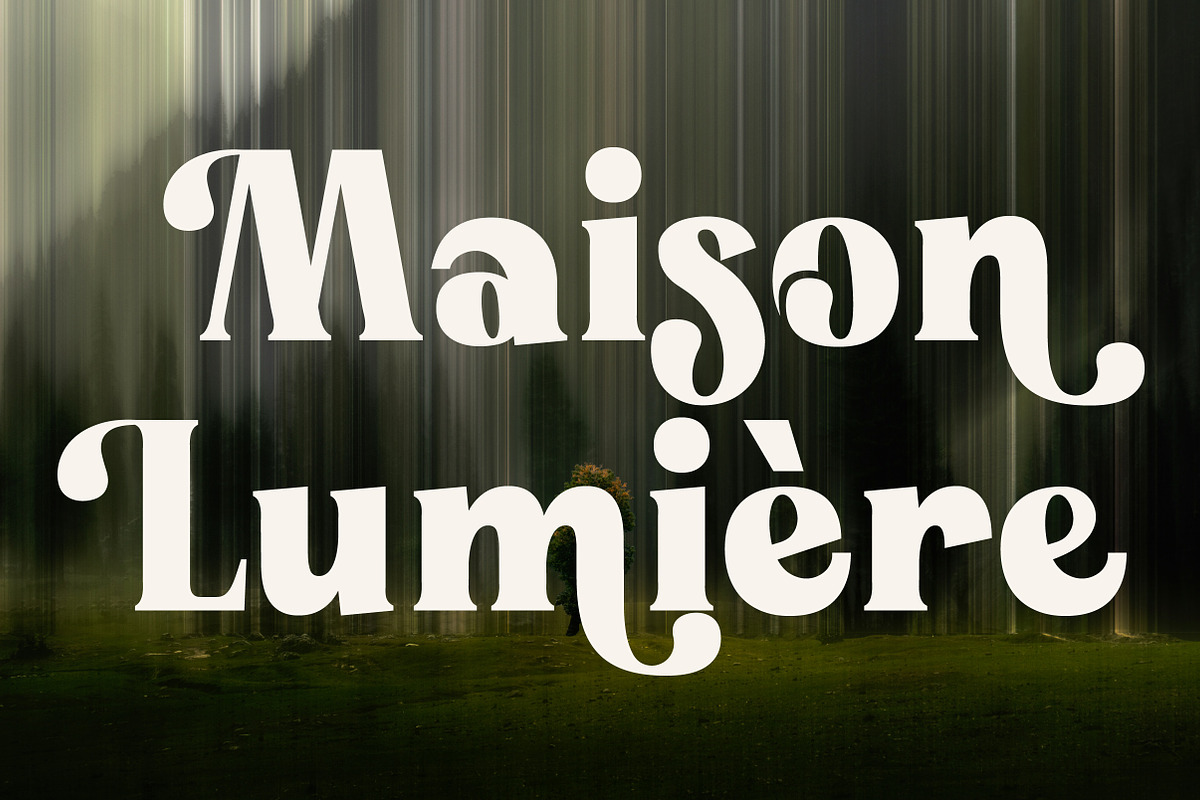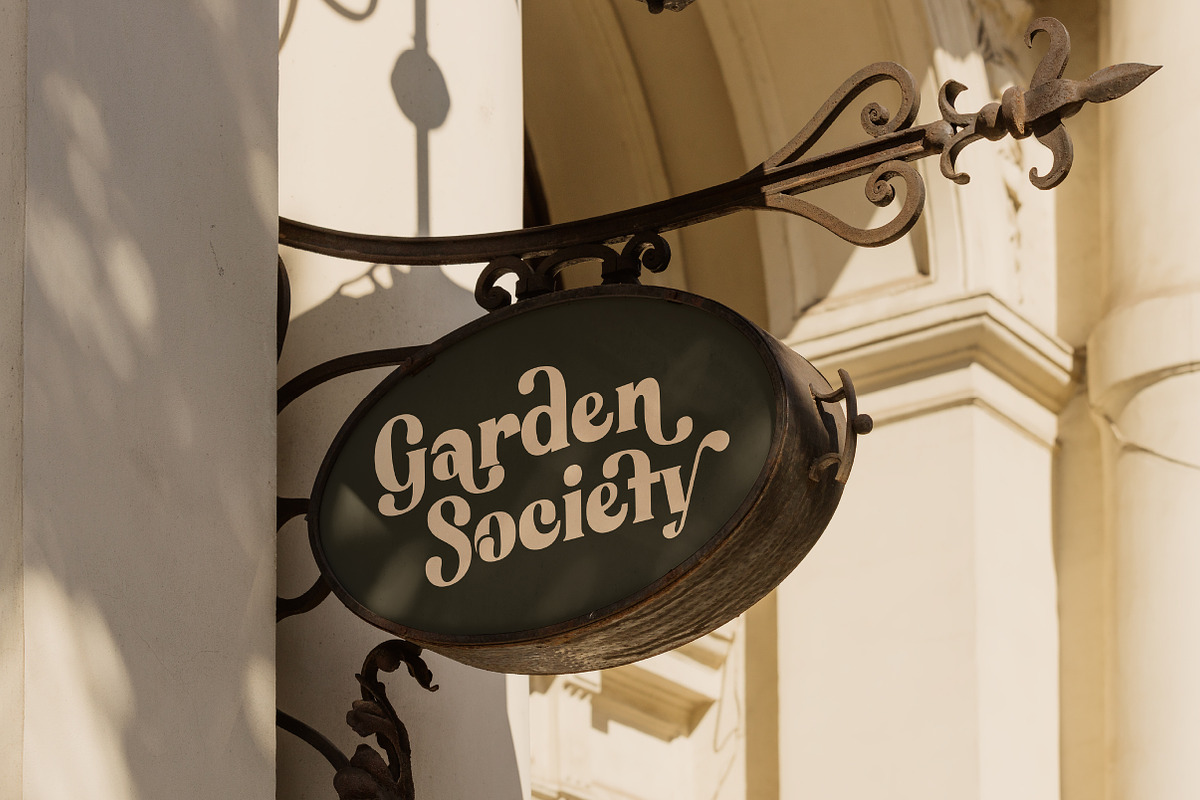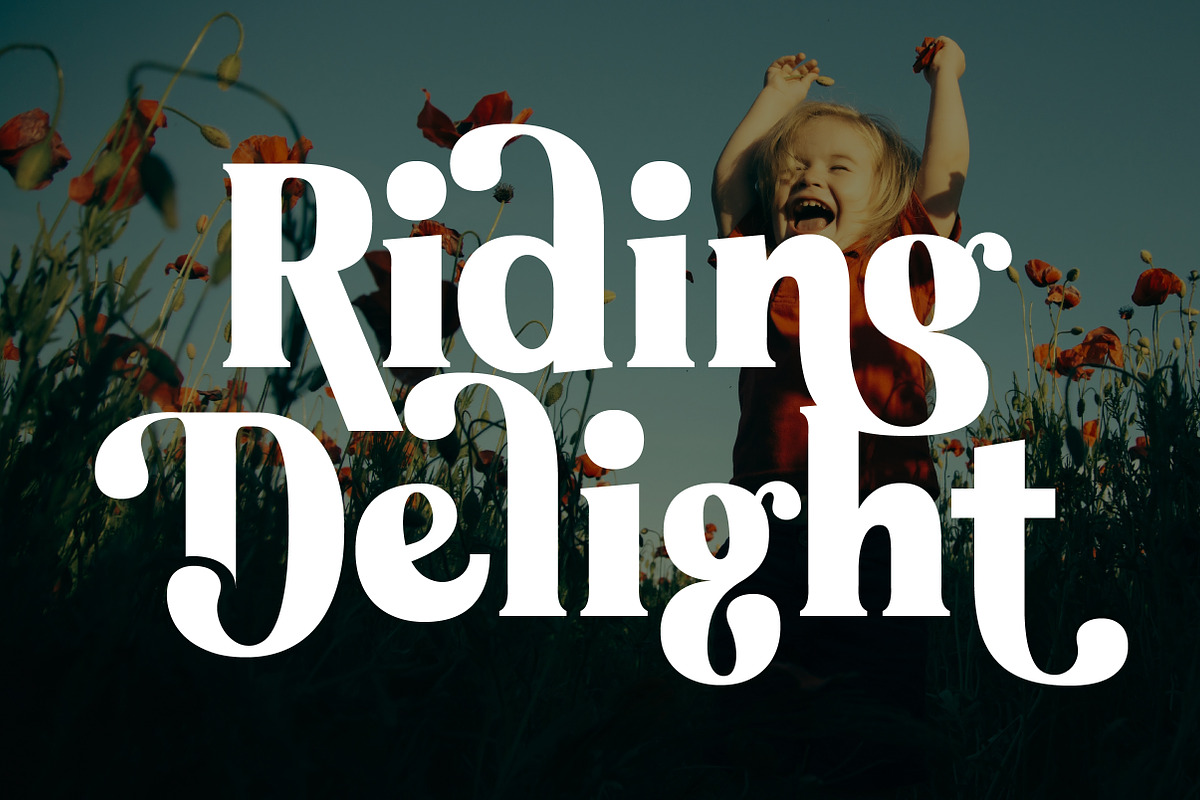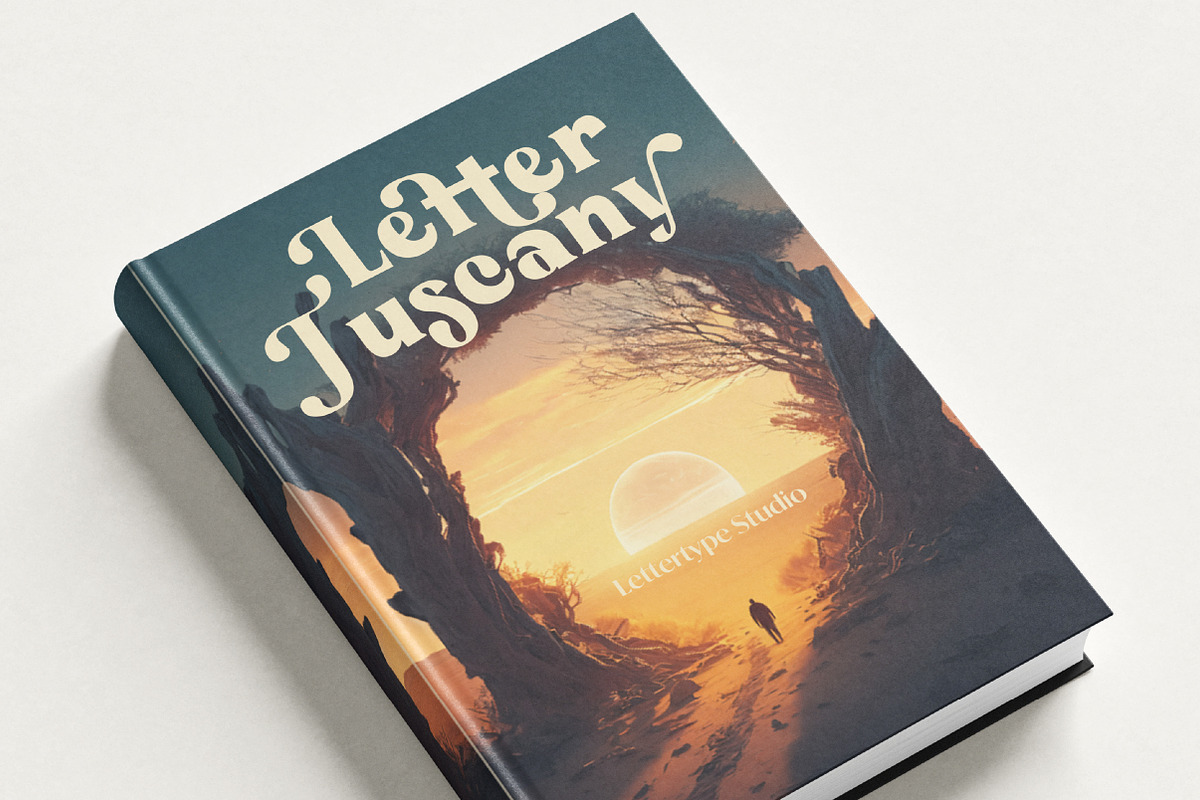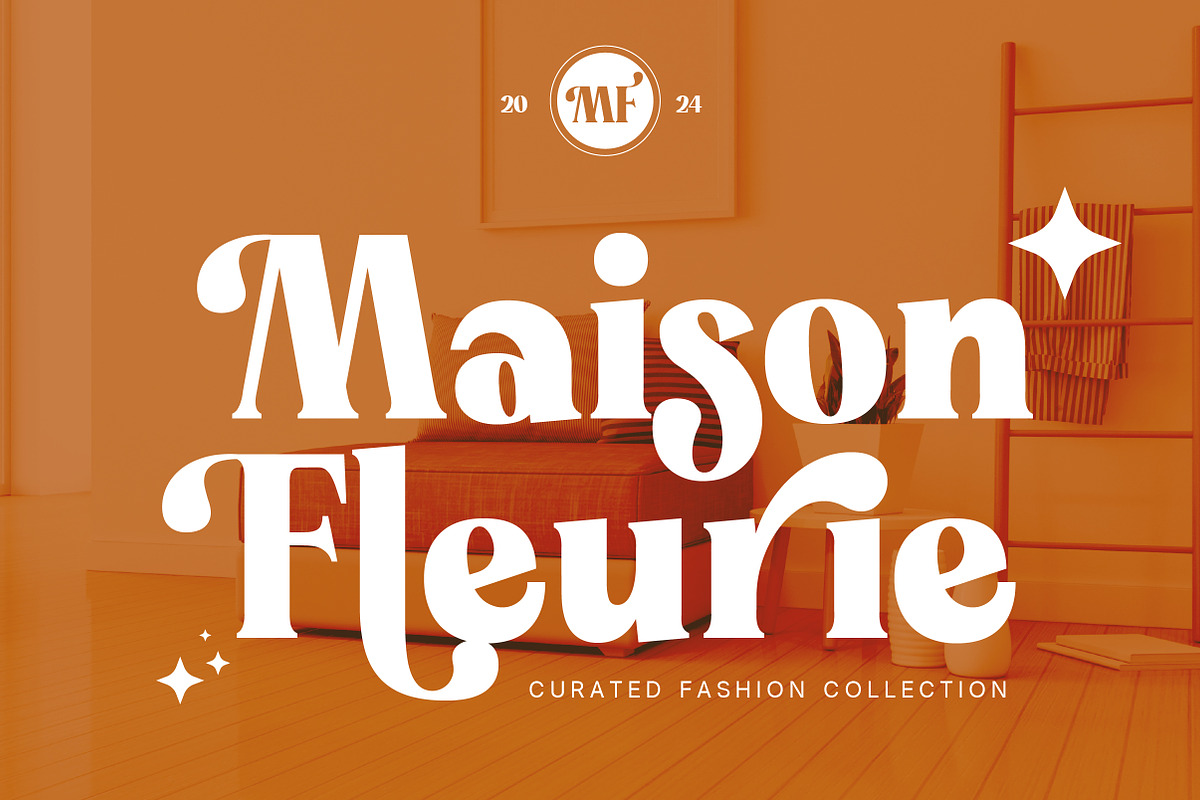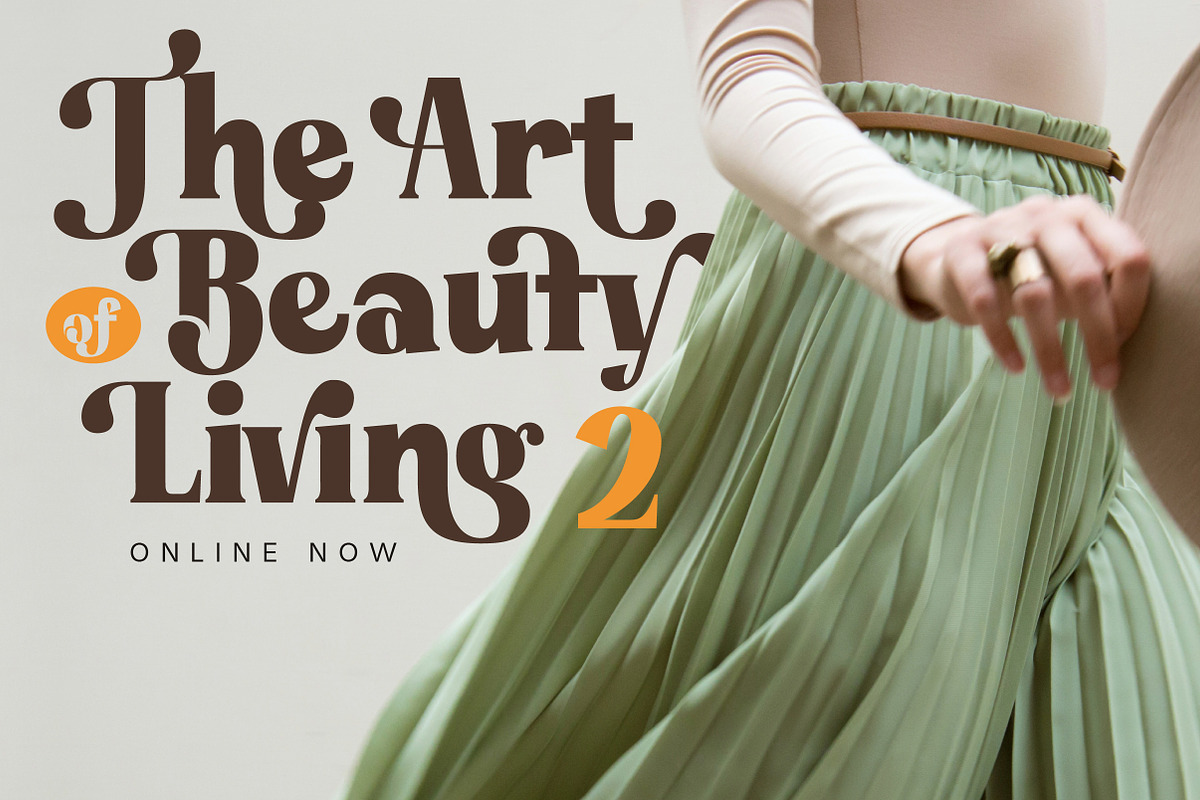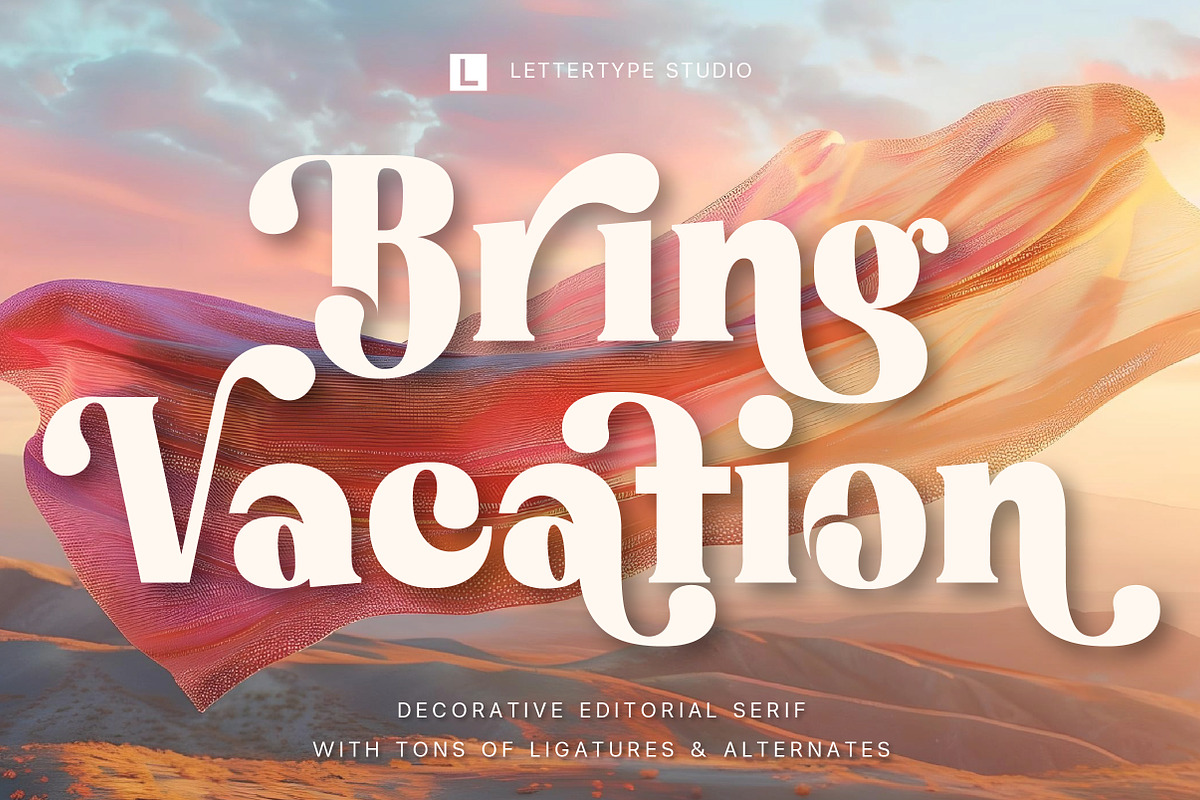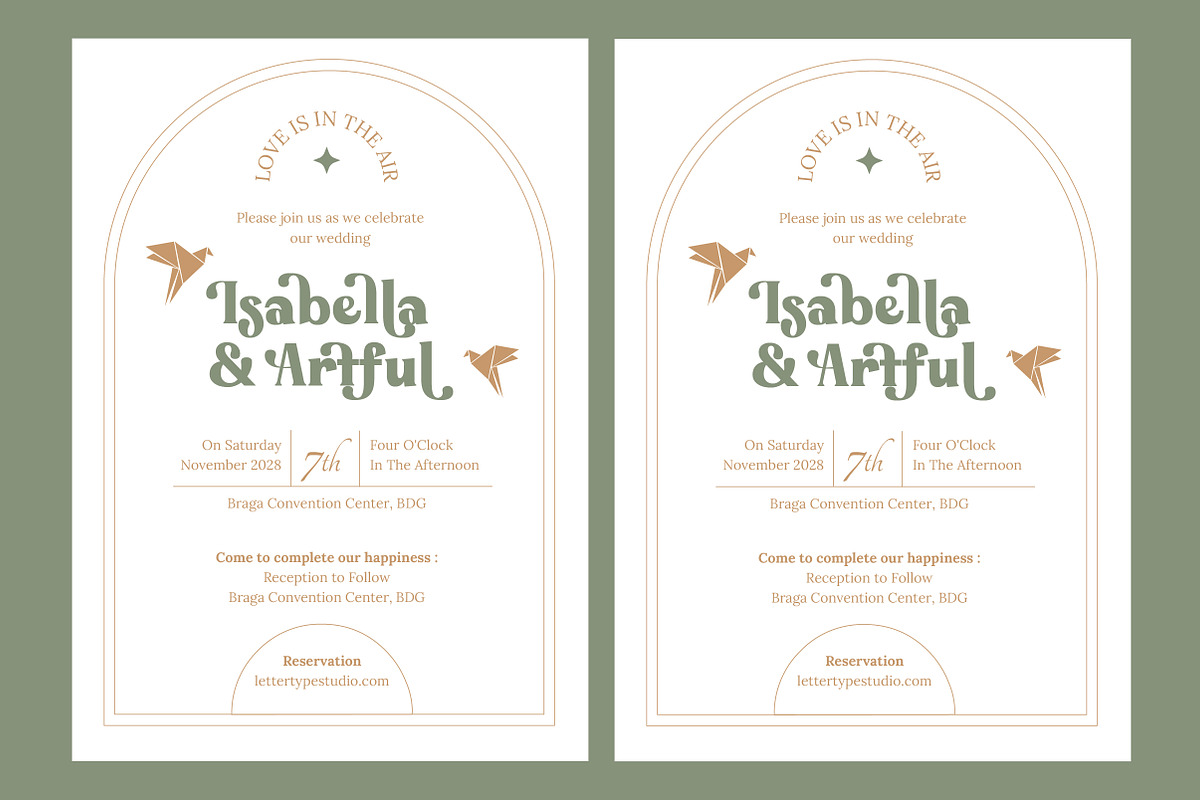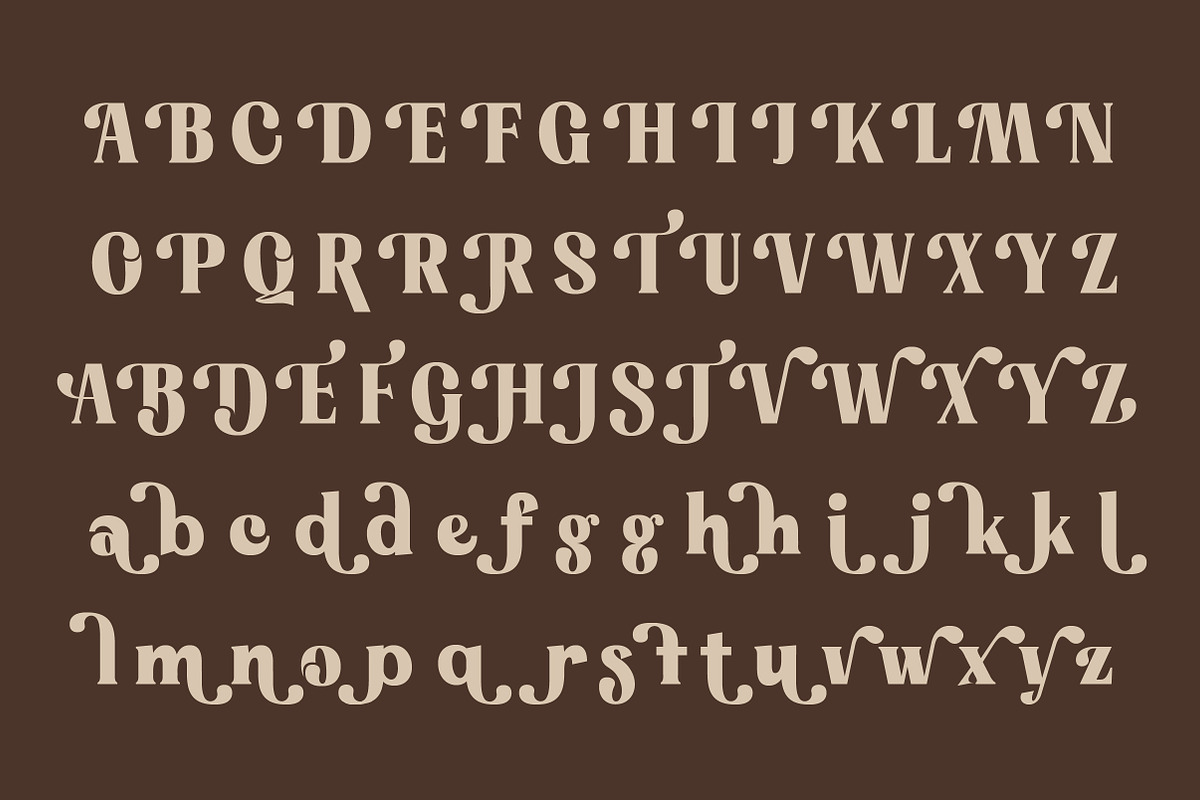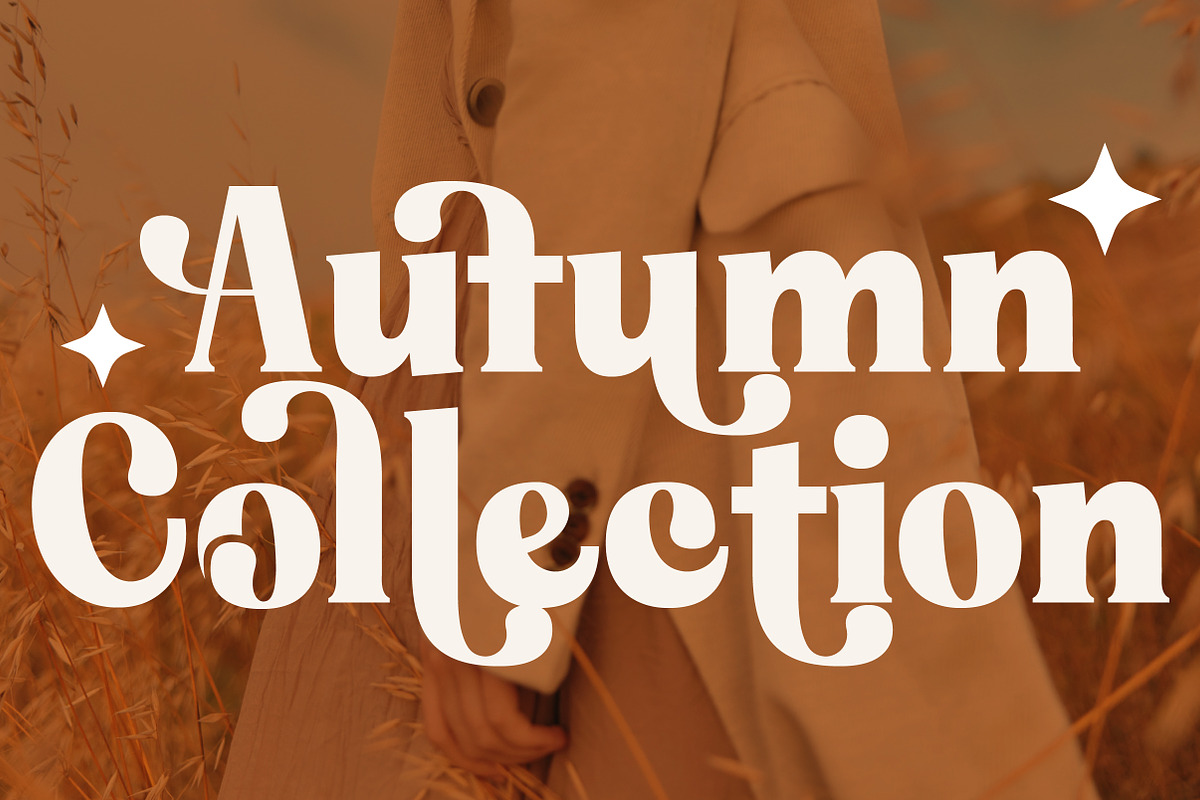
Bring Vacation – Decorative Serif
Bring Vacation is a decorative editorial serif that blends artistic curves, expressive ligatures, and vintage-inspired elegance into a distinctive visual experience. Designed for boutique branding, cinematic editorials, fashion campaigns, book covers, and creative storytelling, this typeface brings personality and sophistication to every headline. Its flowing terminals and memorable letterforms create striking compositions that feel both timeless and contemporary.
Inspired by vintage editorial aesthetics, romantic visual storytelling, and artistic poster design, Bring Vacation offers a unique balance between decorative beauty and practical usability. Whether used for logos, packaging, invitations, magazines, or promotional campaigns, it delivers a strong visual identity that stands apart from ordinary serif fonts.
Bring Vacation Features:
2 Styles
Regular & Italic
78 Alternates & 43 Unique Ligatures
572 Glyphs Total
260+ Languages Support
Boutique Branding
Fashion Campaigns
Cinematic Posters
Publishing & Editorial Design
Artisan Packaging